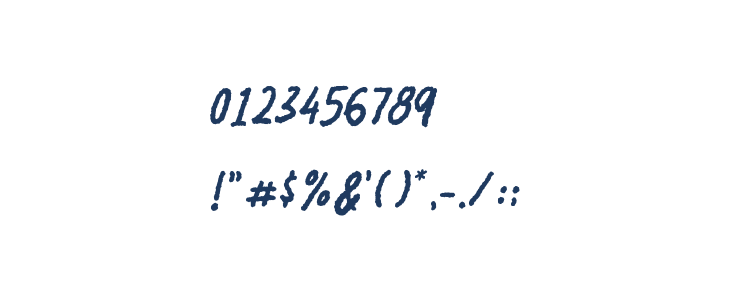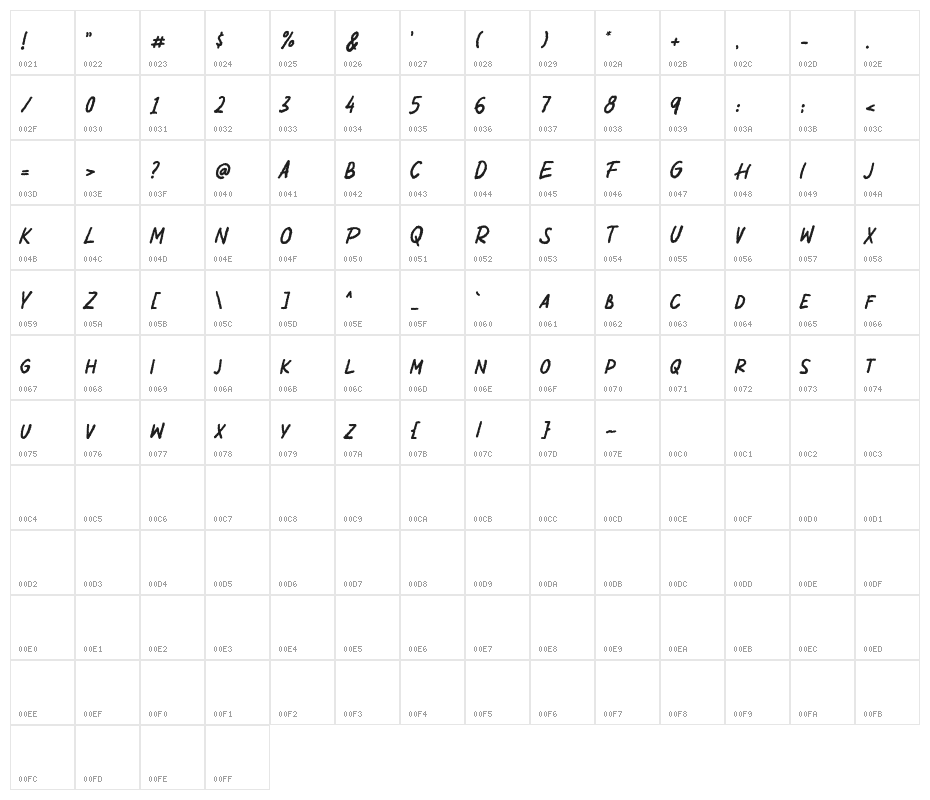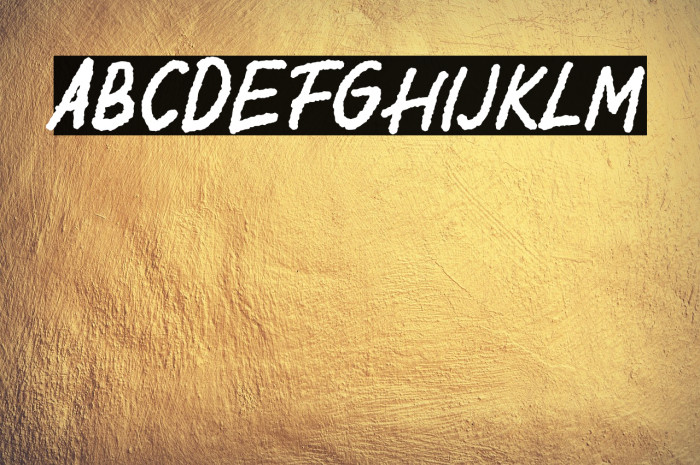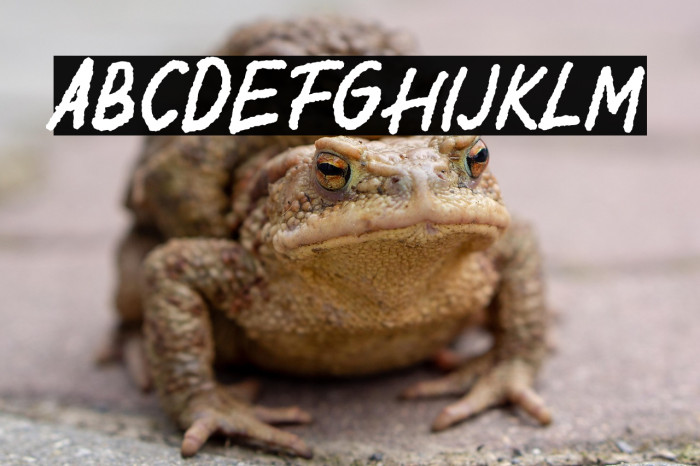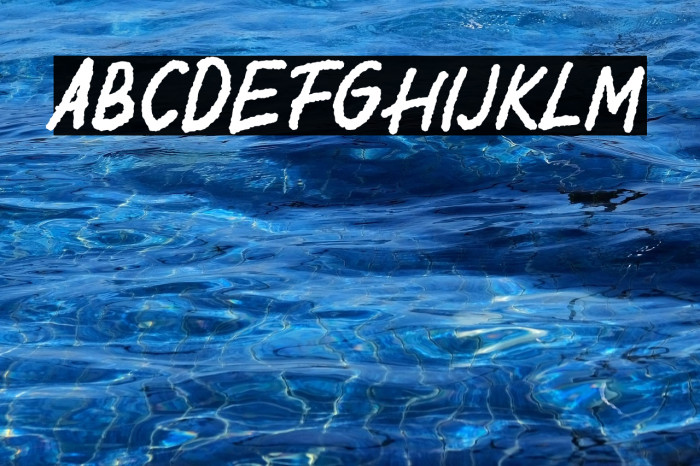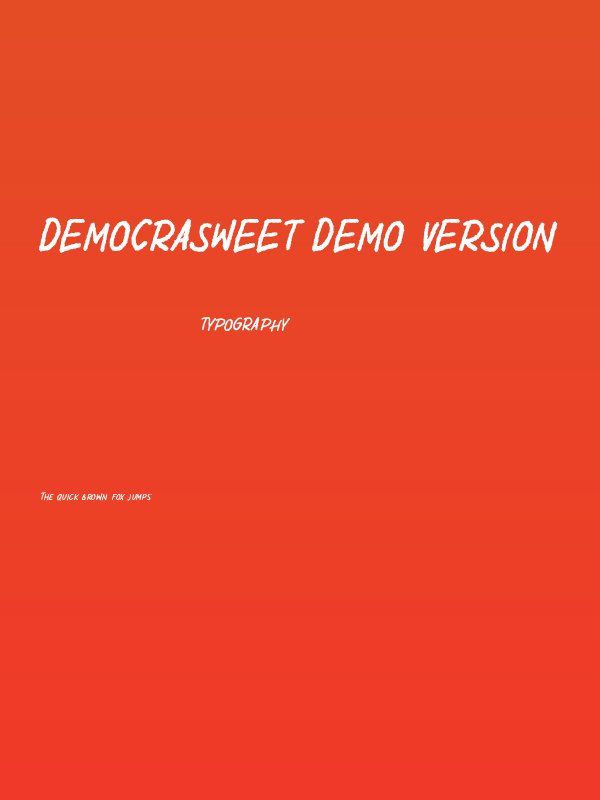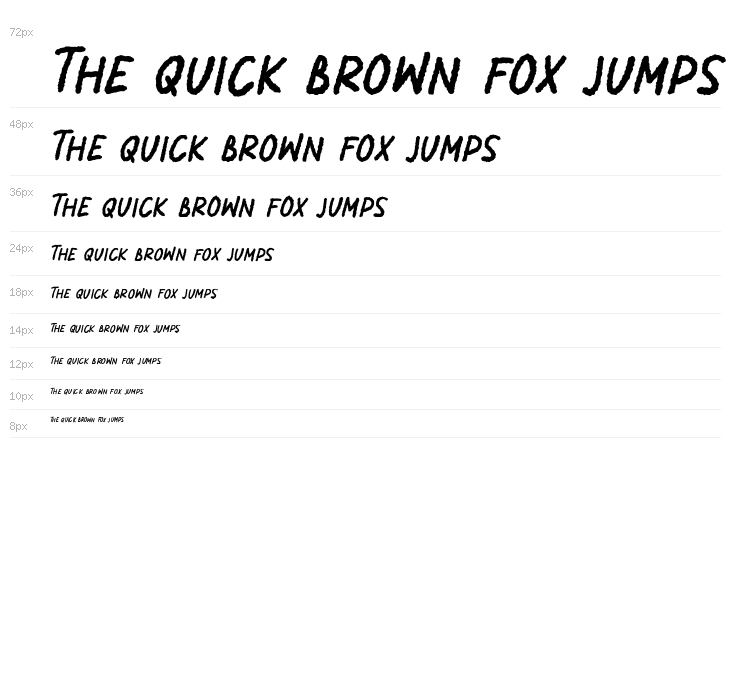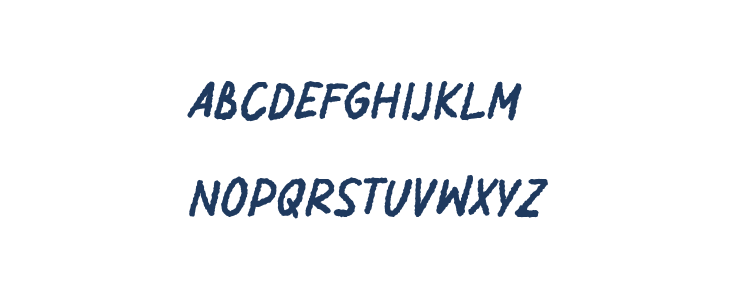
Democrasweet Demo Version Font
Democrasweet Demo Version Description
This font features a casual, handwritten style with a playful and dynamic appearance. The characters are slightly slanted, giving a sense of movement and energy. The strokes are uneven, mimicking the natural flow of handwriting, which adds a personal touch. The uppercase and lowercase letters are well-balanced, maintaining readability while offering a unique flair. The numbers and special characters follow the same handwritten aesthetic, ensuring consistency throughout the font. This style is ideal for projects that require a friendly and approachable look.
| Proposed Projects | Ideal for greeting cards, personal blogs, informal invitations, and creative branding. |